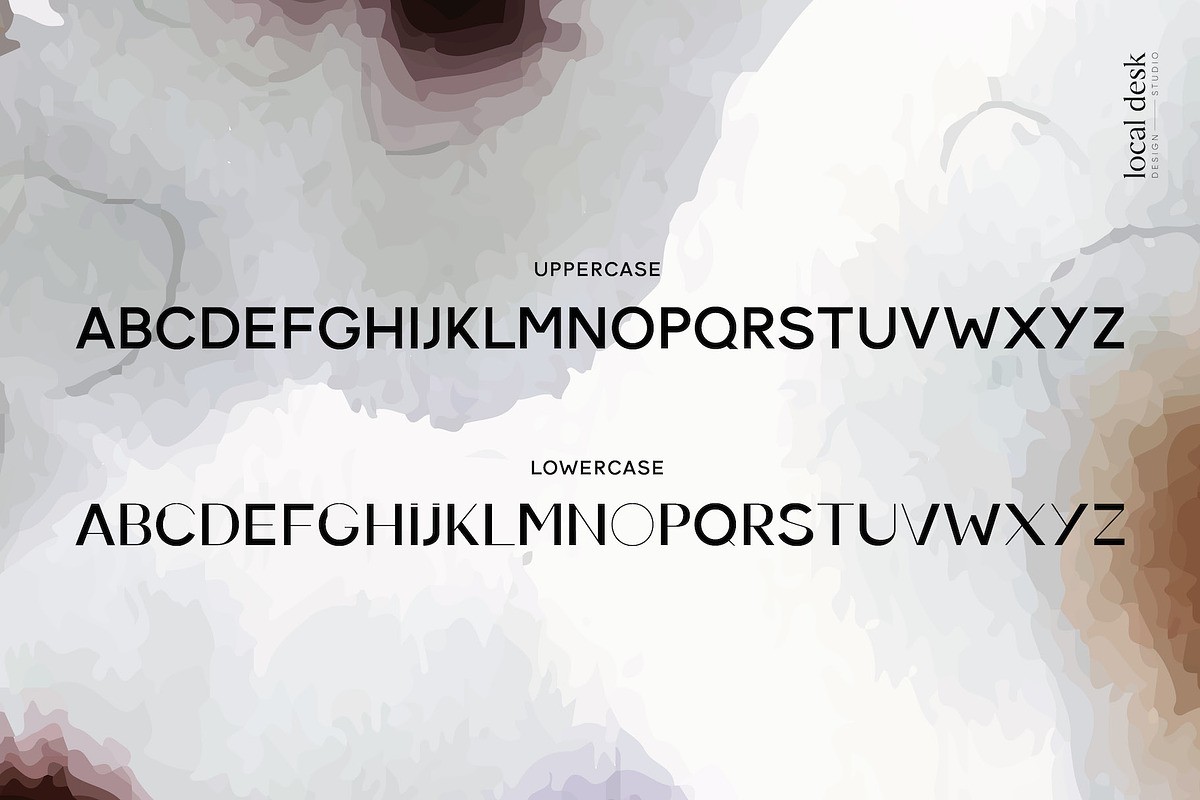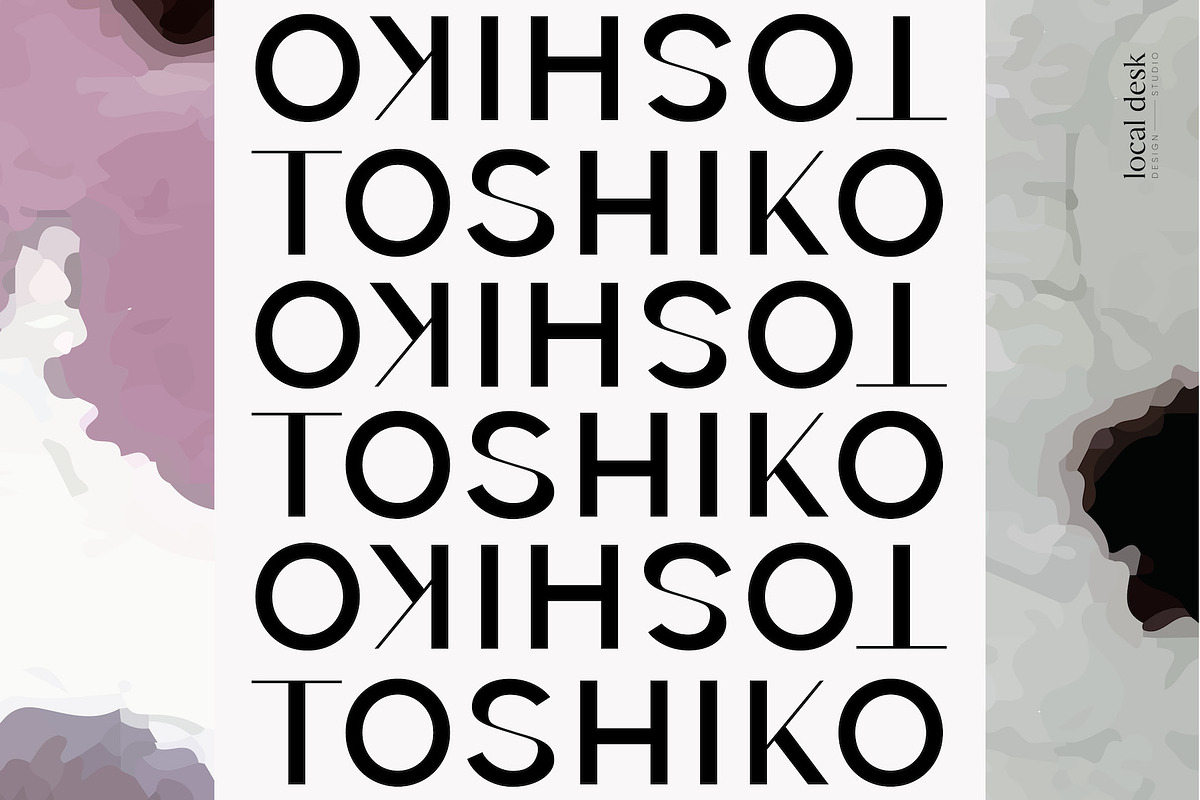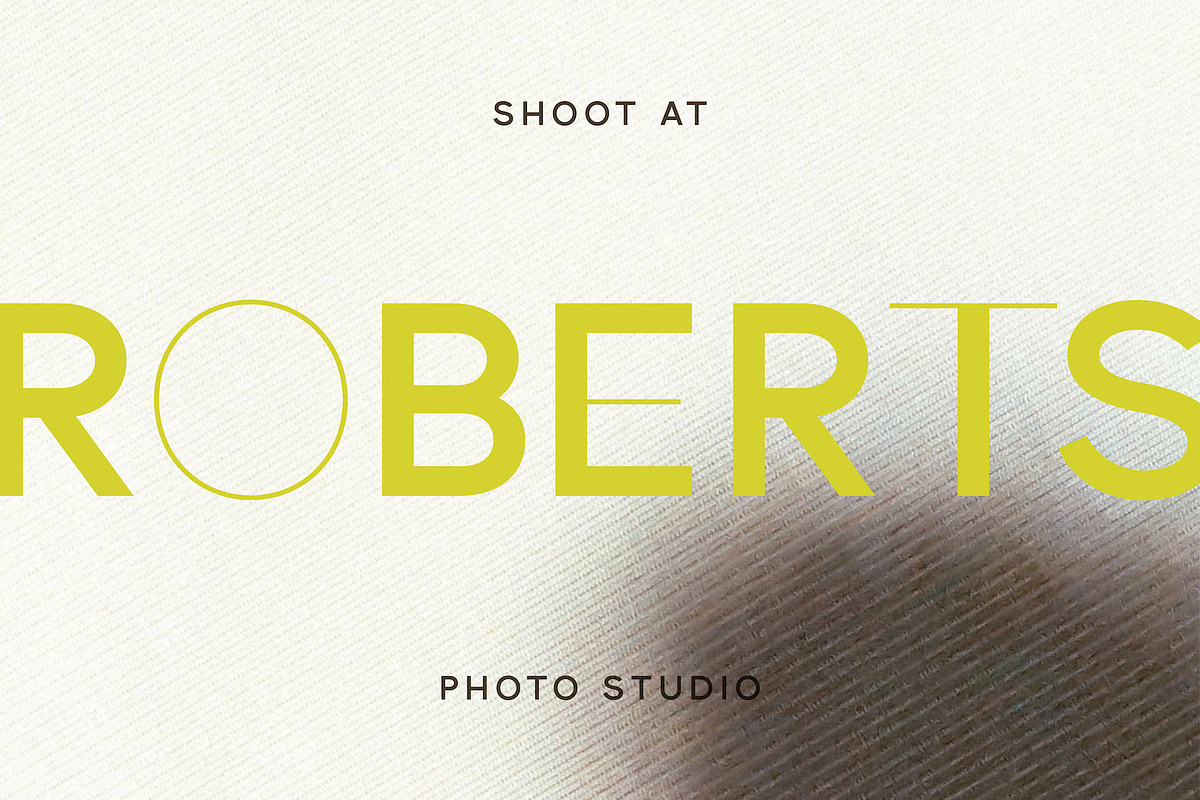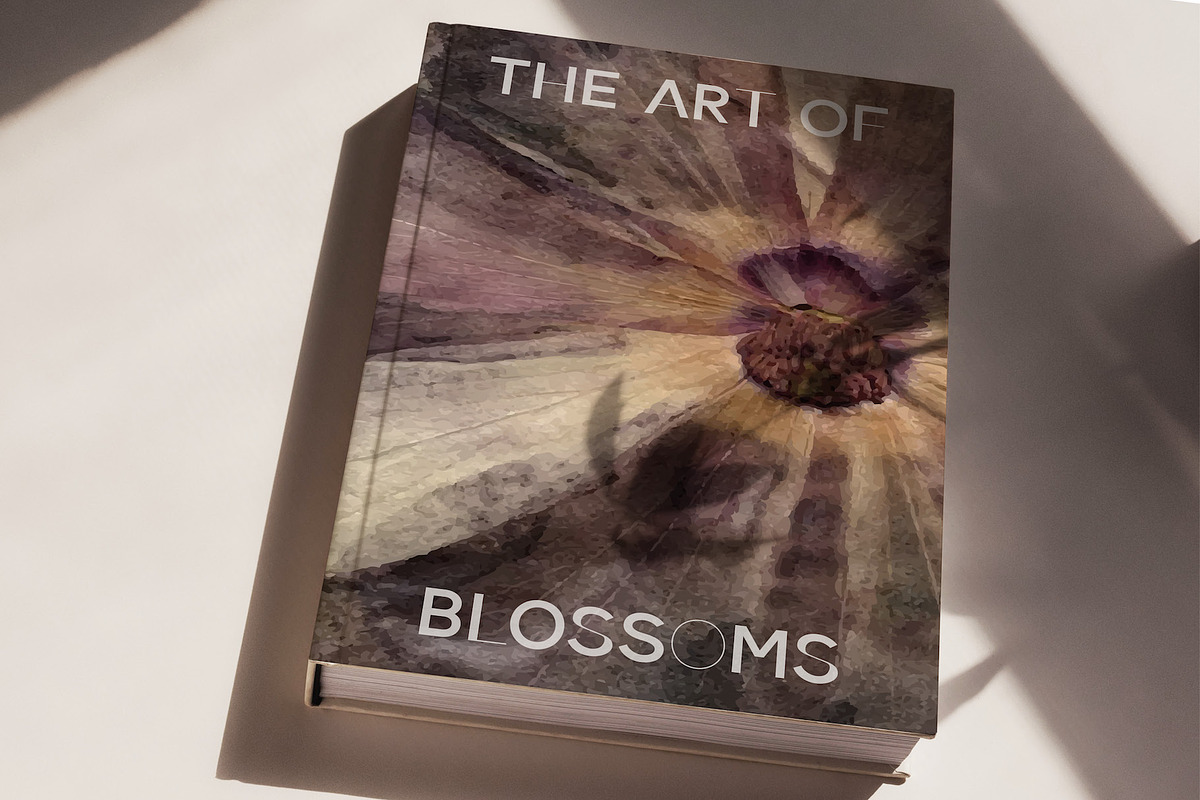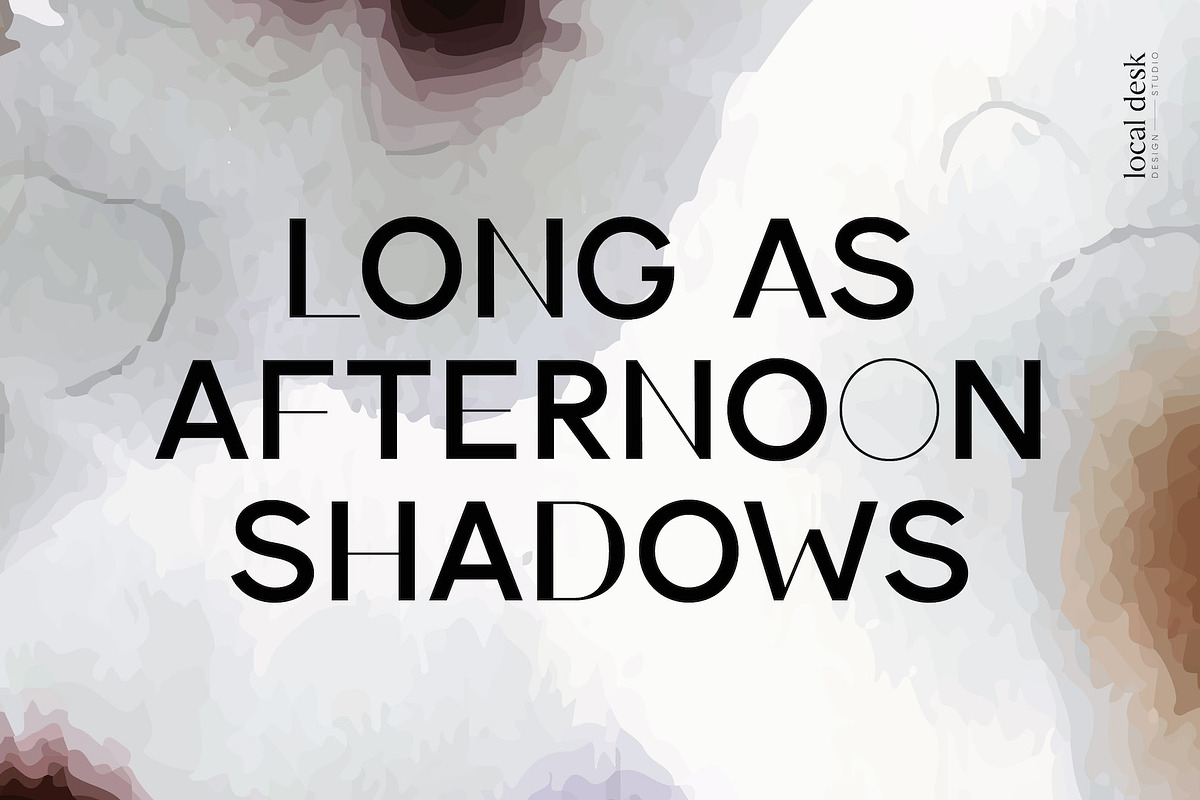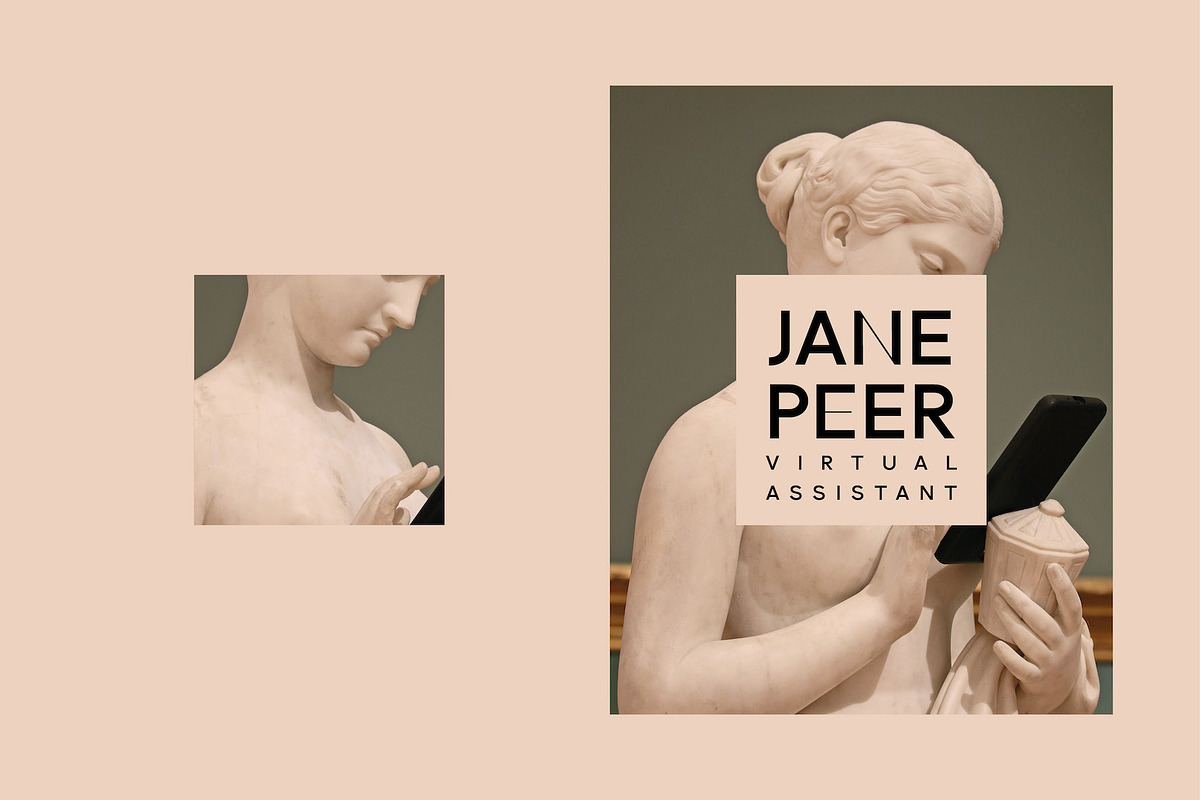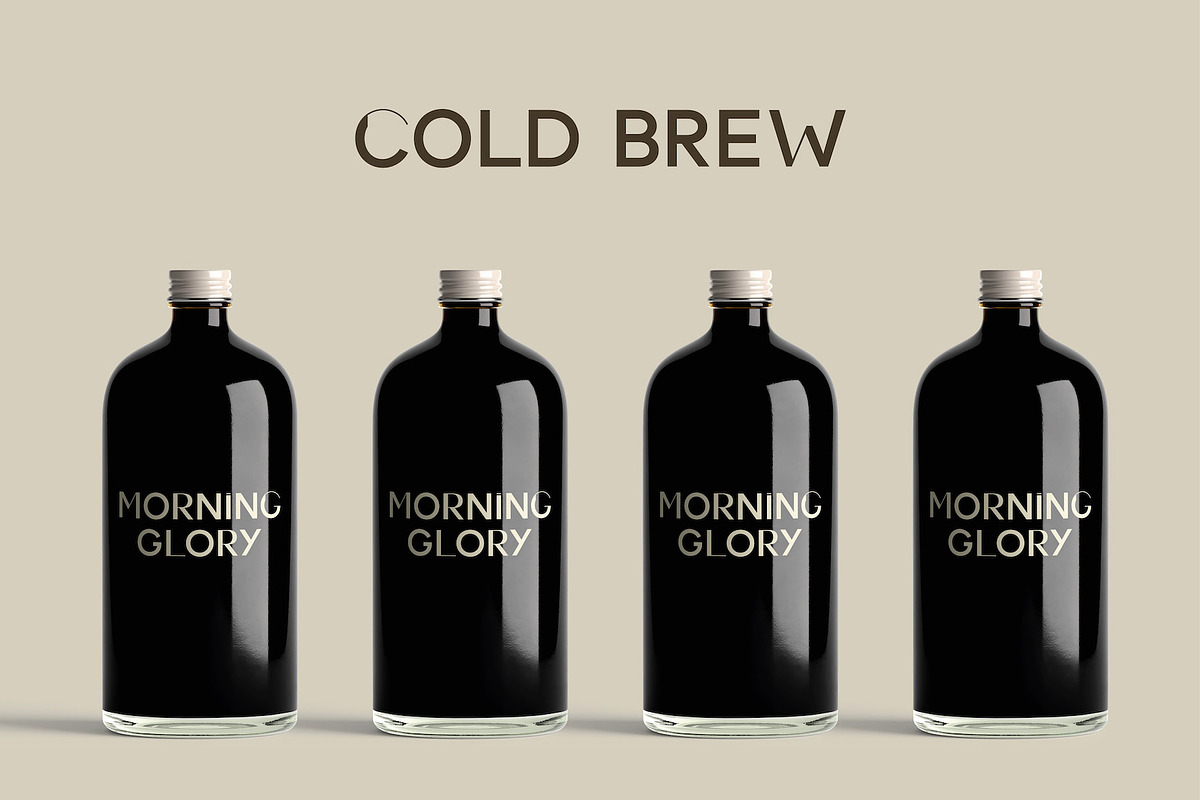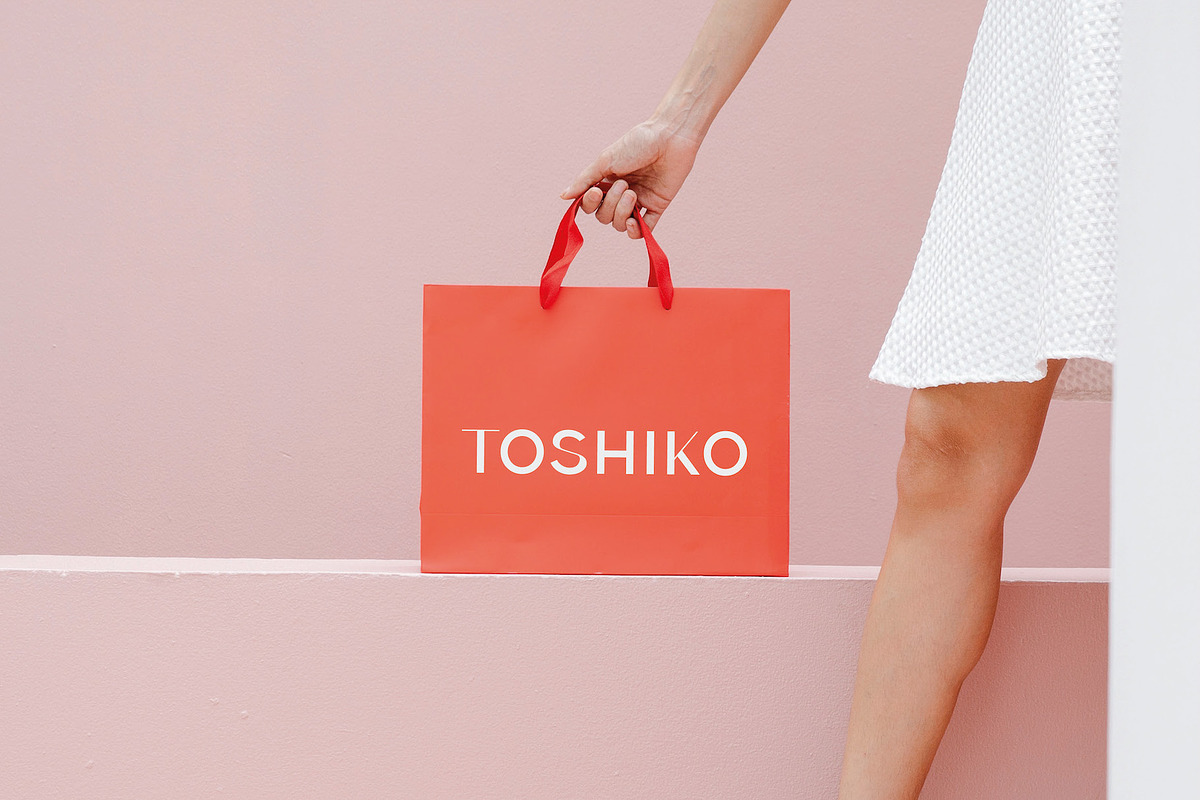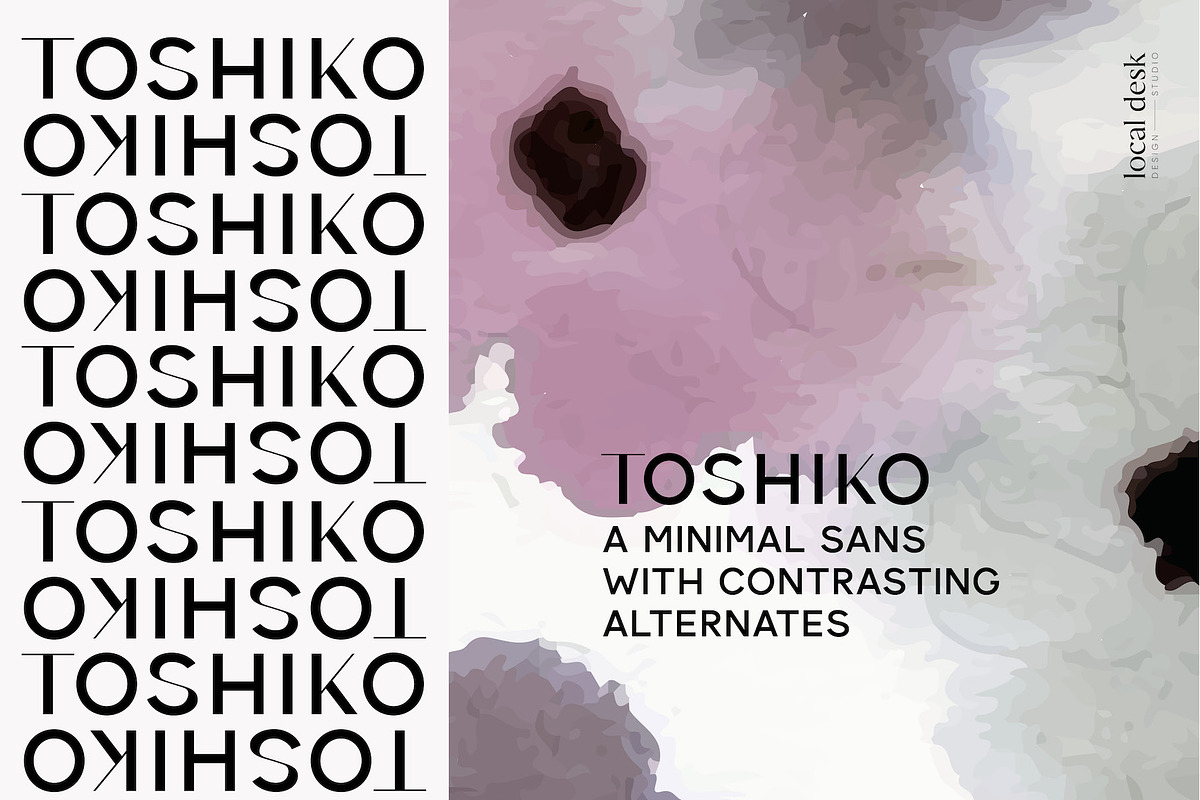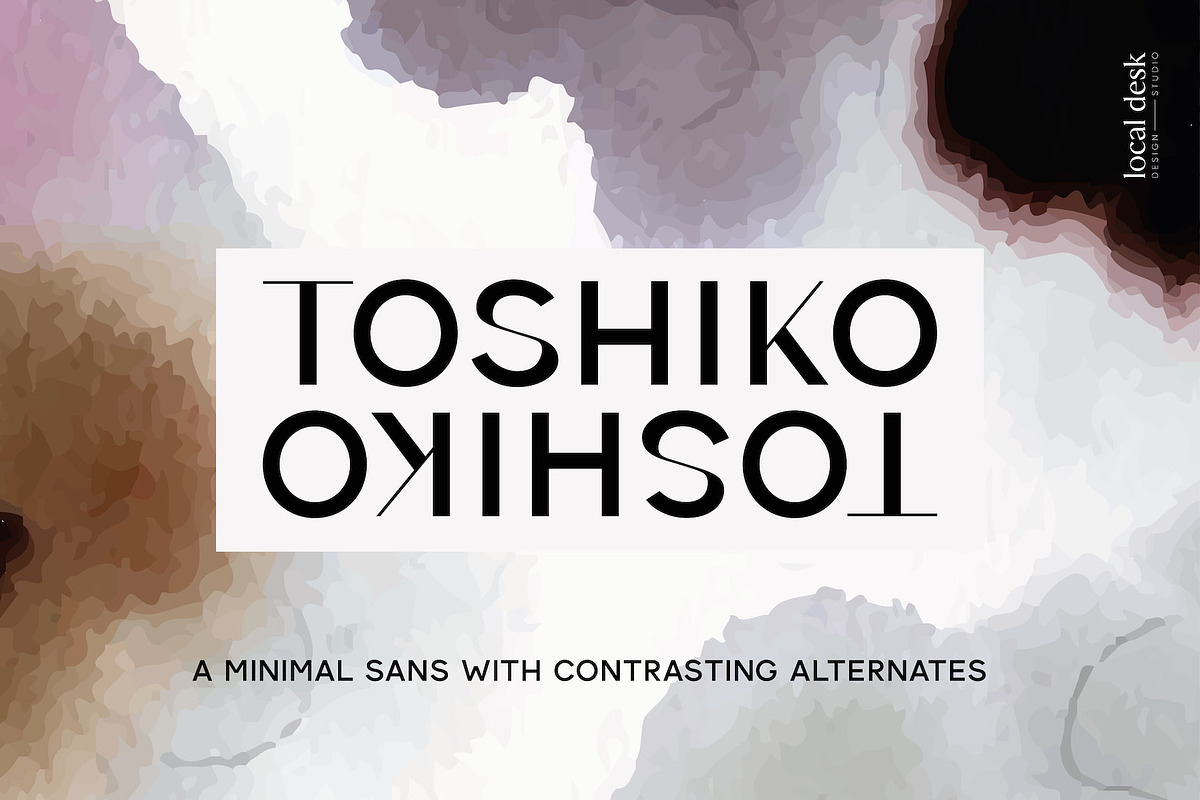
Toshiko – Minimal & Clean Sans
Toshiko is a minimal & modern sans serif typeface that is perfectly suited for designing unique, clean logos & elegant brands, bespoke packaging, eye-catching website headers, and so much more!
This font is equipped with 26 contrasting alternates to make everything you design look refined, customized and professional. The thoughtfully designed alternates in combination with the modern & clean main characters create the perfect balance for your design project.
The alternate characters can be used by simply typing the appropriate lowercase letter. This way you can create modern & individualized word marks within seconds – AND you can do this in any software e.g. Canva.
Toshiko is perfect for: distinctive branding, elegant cover designs, stylistic headlines, trending packaging, meaningful quotes and so much more.
- 26 Stylistic Alternates